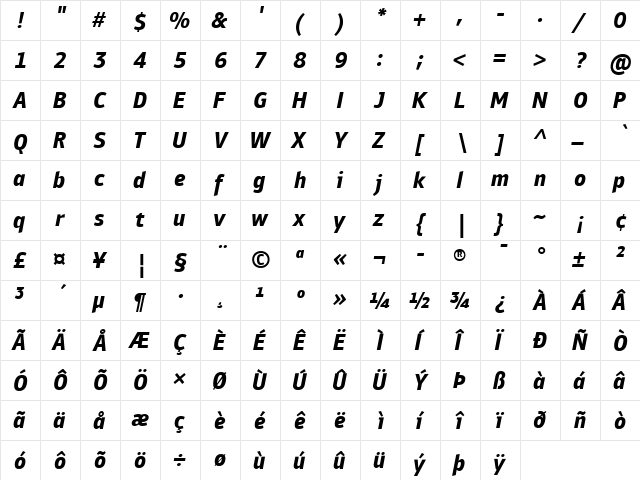
PF Bulletin Sans Pro Bold Italic
Design Context for PF Bulletin Sans Pro Typeface
PF Bulletin Sans Pro offers clean, dependable letterforms without strong stylistic allegiance, making it a practical choice for designers who need flexibility. The slanted form adds forward momentum and visual energy. Its bold stroke weight gives it real presence on the page.
Pro Tip: Use PF Bulletin Sans Pro for emphasis, pull quotes, and subheadings where its slanted energy can add rhythm to the layout.